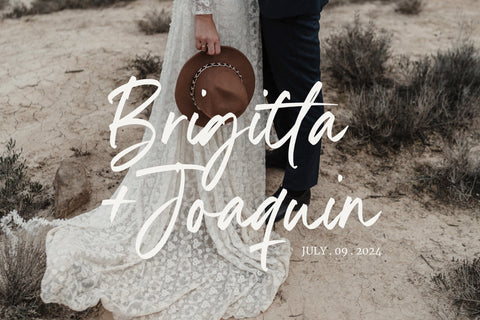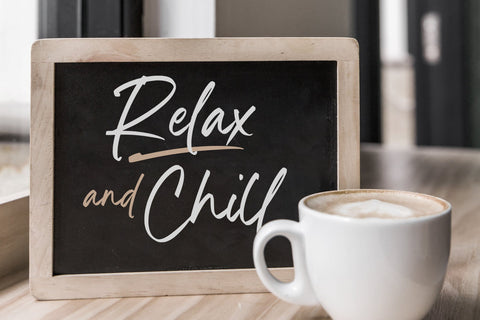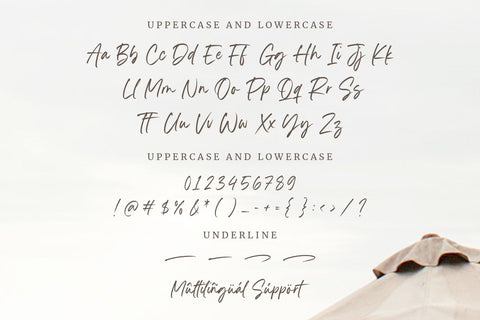
Southern Paradise - Handwritten Script font
Proudly Present, Southern Paradise
Southern Paradise A Handwritten Script Font , which was created with great care and specially created for you š
Southern Paradise is perfect for product packaging, branding project, megazine, social media, wedding, or just used to express words above the background.
Southern Paradise also multilingual support.